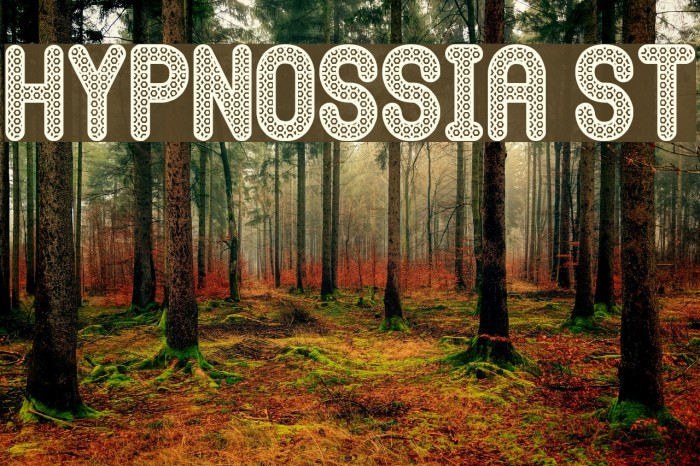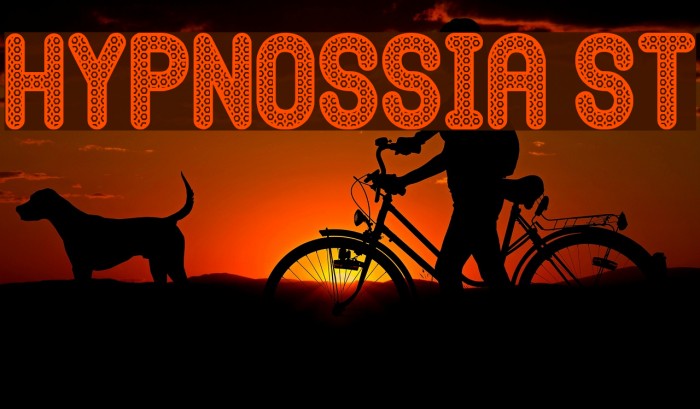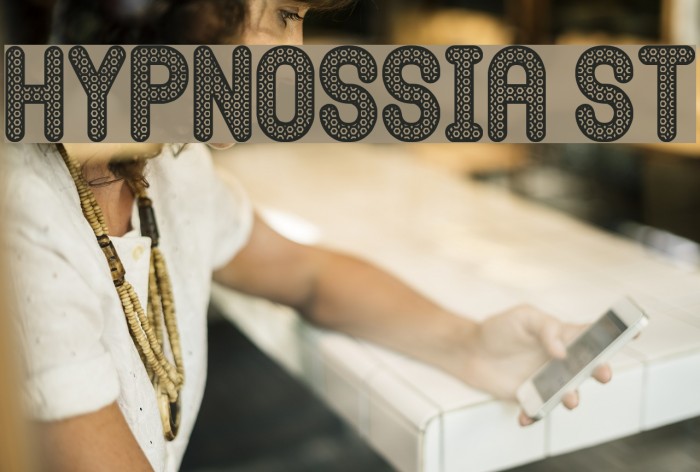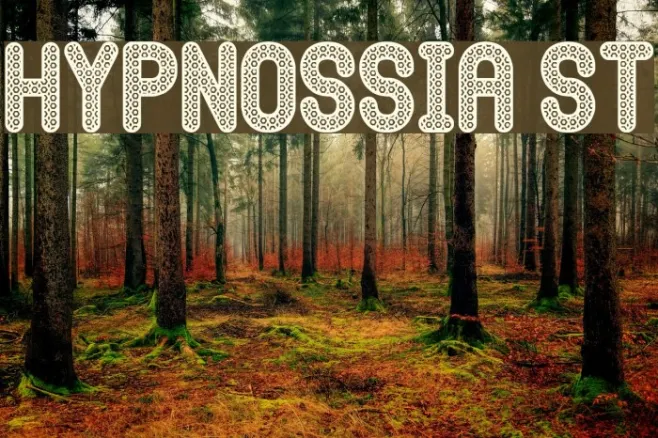
Hypnossia St Font
This font features a bold, decorative style with a unique pattern of circular dots filling each character. The letters are uppercase and have a consistent thickness, creating a uniform appearance. The playful design is eye-catching and adds a whimsical touch to any text. The characters are well-defined, with clear edges and a slightly rounded shape, making them easy to read despite the intricate pattern. This font is ideal for creative projects where a standout, artistic look is desired. The numbers and special characters follow the same design, ensuring consistency across all text elements.
A bold, decorative font with a circular dot pattern filling each character.
- Proposed Projects: Ideal for posters, invitations, branding, and any project requiring a playful, artistic touch.